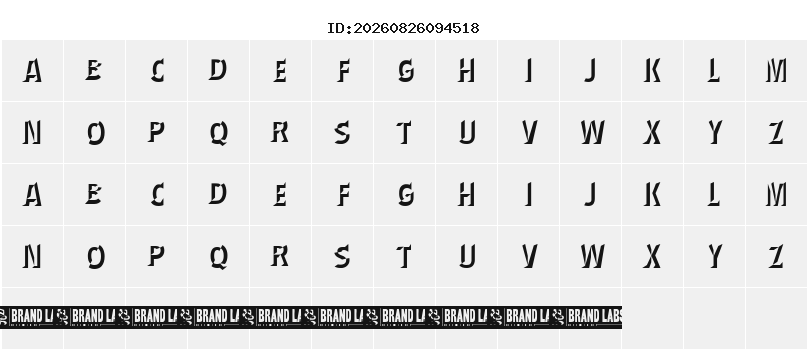
Wednesday Matinee Preview
• Font Name: Wednesday Matinee
• Font Style: Shadow
• Font ID: BrandLabs: Wednesday Matinee Shadow: 2010
• Full Font Name: Wednesday Matinee Shadow
• PostScript Name: WednesdayMatinee-Shadow
• Character Count: 84
• Designer: Kevin Skinner
• Manufacturer: Brand Labs
About Wednesday Matinee.ttf
Wednesday Matinee.ttf is a modern, elegant sans-serif font designed for ultimate readability and visual harmony. Perfect for branding, headlines, web design, and print materials.